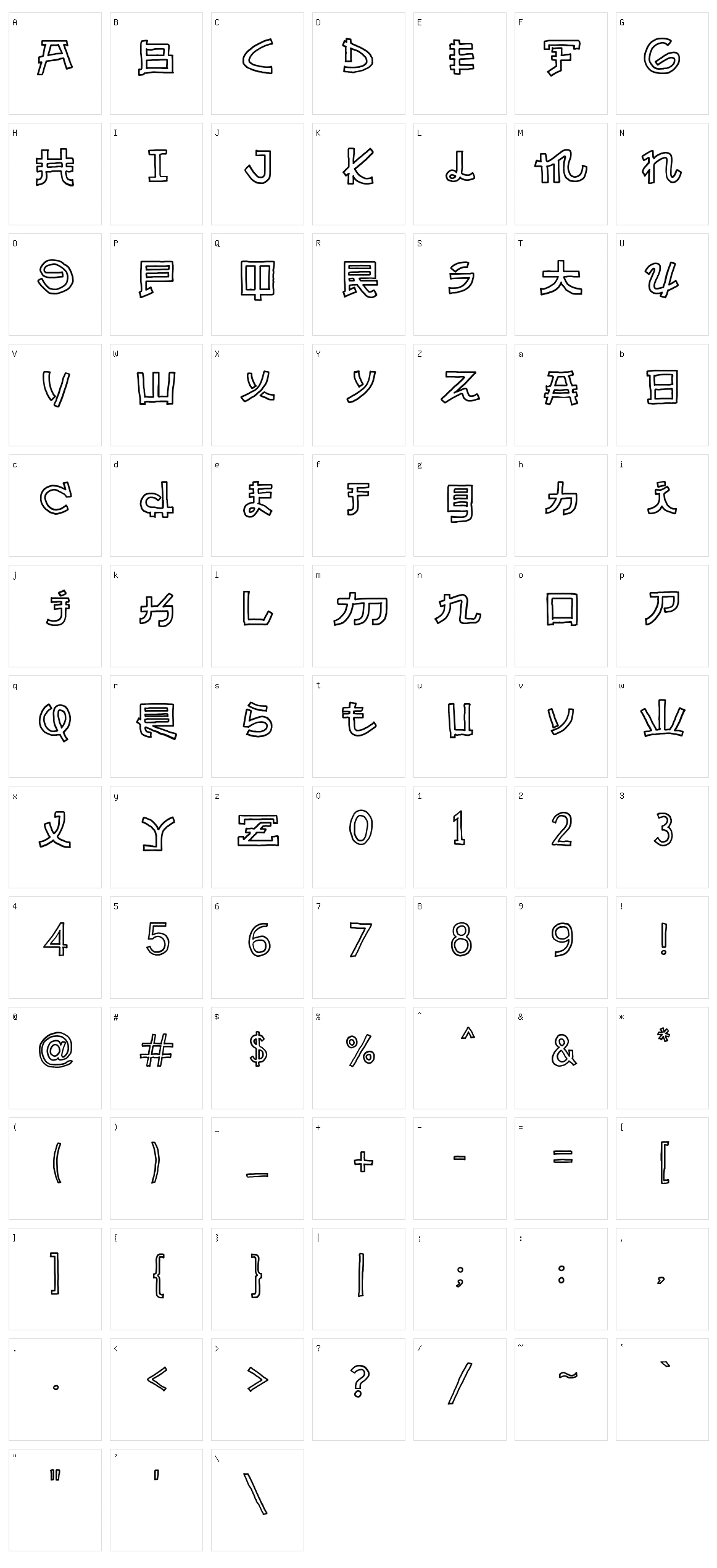
The free font Almost Japanese Cartoon is carefully designed by Galdino Otten Fonts, showcasing a thoughtful balance of creativity and usability and falls under the Asian font style. When you download the ZIP file, it contains only 75.08 KB of font files, making it lightweight and quick to download. Please review the license details below to understand permitted usage and distribution rights. If license information is not available, we recommend using this font for personal projects only or contacting the author directly for commercial usage permissions.